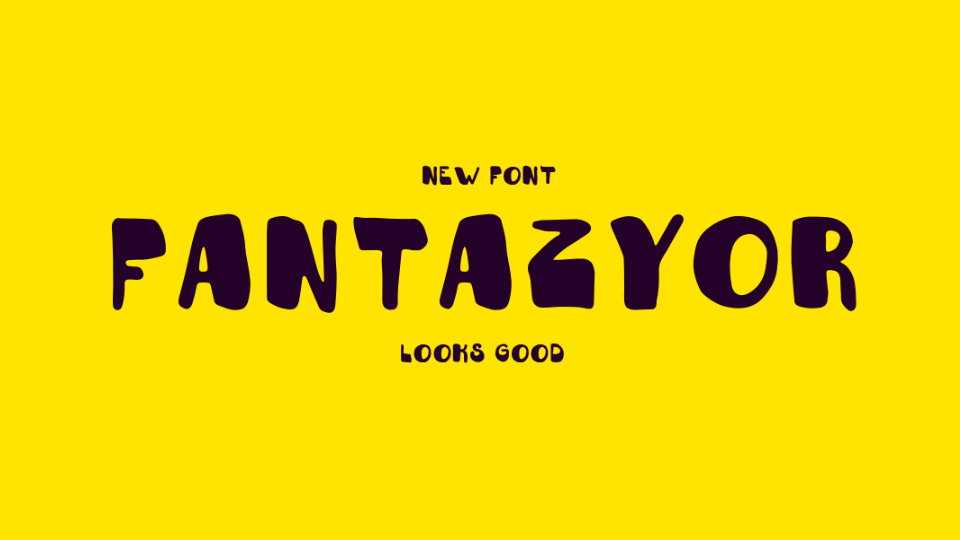
Download Fantazyor font, a funny and friendly display font, for craft design project, kids books and goods, posters, headlines and other artworks.
Designer: Misha Panfilov